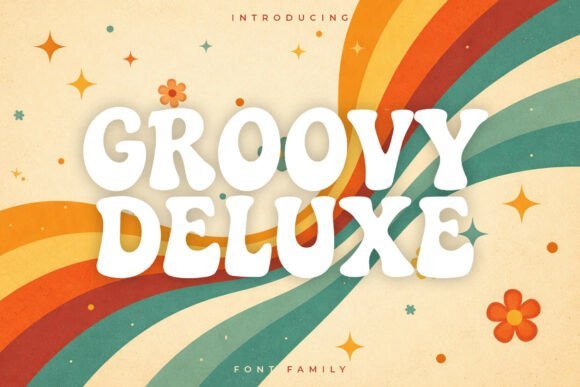
Get Ready to Groove: Unlock the Funky Vibes of the Groovy Deluxe Font
Have you ever been browsing through a vintage thrift store, and suddenly, a psychedelic poster catches your eye, transporting you back to the groovy days of the 1970s? That’s exactly the kind of instant creative spark the Groovy Deluxe Font is designed to ignite. This retro-inspired typeface is a love letter to the era of funk, disco, and flower power, with its exaggerated curves, thick weights, and liquid-like forms that capture the soulful energy of the decade.
As a designer, you know the value of having the right font to convey your message. The Groovy Deluxe Font is a game-changer for anyone looking to add a nostalgic touch to their projects. Its bubbly personality and rhythmic flow make it the ultimate choice for festival posters, retro-themed merchandise, and social media content that needs a fun and playful vibe.
Groovy Deluxe Font Key Features
- Font Family: Groovy Deluxe is a unique, high-quality font family available in multiple styles, including Regular, Bold, Italic, and Bold Italic.
- Unique Characteristics: Groovy Deluxe features a distinctive, hand-drawn design with a touch of elegance and sophistication, making it ideal for creative and professional projects.
- Character Count: The font family includes a comprehensive character set, including Latin, Cyrillic, and Greek alphabets, as well as various symbols and punctuation marks.
Review of Groovy Deluxe Font
I’ve had the chance to work with the Groovy Deluxe Font, and I must say it’s a unique addition to any project. ✨ The font’s funky, psychedelic vibe is perfect for creating a retro or hippie-inspired aesthetic. It’s also surprisingly versatile, and I’ve found it works well for headings, body text, and even logos.
One of the standout features of the Groovy Deluxe Font is its extensive character set. It includes a wide range of glyphs, from common letters and numbers to more exotic symbols and punctuation marks. ✨ This makes it an excellent choice for designers who need a font that can handle a lot of different languages or character sets.
While the Groovy Deluxe Font is a great choice for many projects, there are a few limitations to be aware of:
- ⚠️ The font can be a bit difficult to read at smaller font sizes, especially for body text.
- ⚠️ Some users may find the font’s irregular shapes and lines to be distracting or hard to follow.
- ⚠️ The font’s extensive character set can make it difficult to find the right glyph in a hurry.
Overall, I think the Groovy Deluxe Font is a great choice for designers who are looking for a unique and eye-catching font. While it may have a few limitations, its strengths far outweigh its weaknesses. With the right use case, this font is sure to add a touch of fun and personality to any project.
For the most out of the Groovy Deluxe Font, use it for:
– Creating eye-catching headings and titles
– Designing custom graphics and typography
– Adding a touch of vintage flair to your designs
– Creating professional-looking presentations and documents
– Experimenting with different font combinations and styles
Alternative Fonts to Groovy Deluxe Font
Great Vibes is a fun, cursive script font perfect for creating a laid-back and playful atmosphere. It’s ideal for use in advertising, social media, and blogs where a casual tone is desired.
Compared to Groovy Deluxe Font, Great Vibes has a more relaxed feel and is better suited for digital use. While Groovy Deluxe Font is more nostalgic and retro, Great Vibes is modern and fresh.
Carolyna Pro is a elegant, handwritten font that exudes sophistication and charm. It’s perfect for use in high-end branding, luxury packaging, and premium marketing materials.